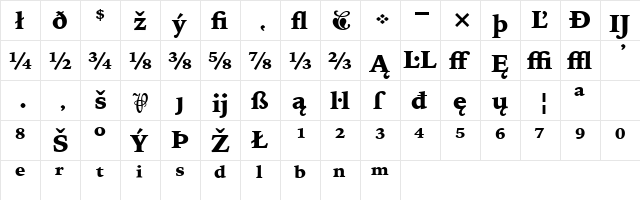
IowanOldSt BlkExt BT Black Extension Font Preview
IowanOldSt BlkExt BT Black Extension
Design Context for IowanOldSt BlkExt BT Typeface
IowanOldSt BlkExt BT takes a measured approach to typography — its balanced proportions and neutral character make it a reliable workhorse for both digital and print work.